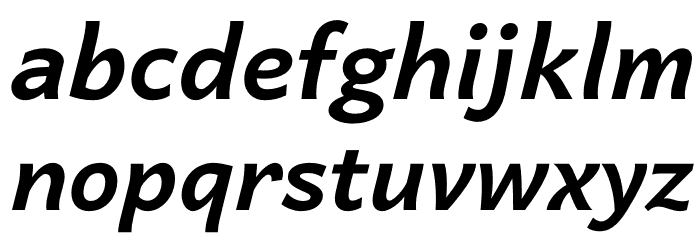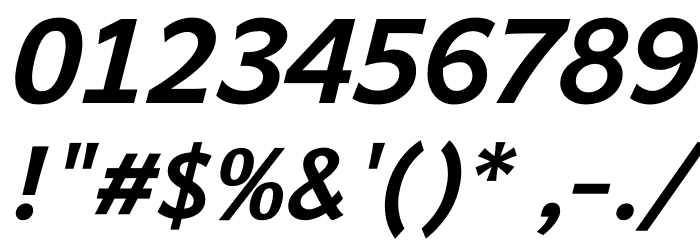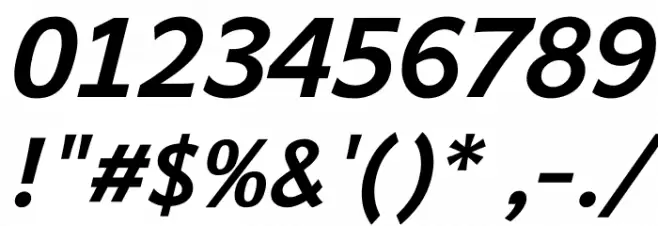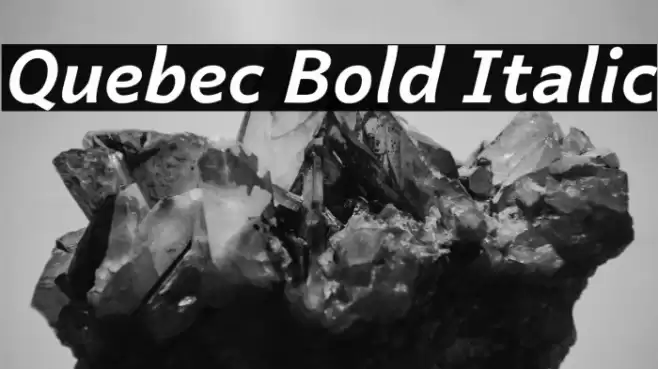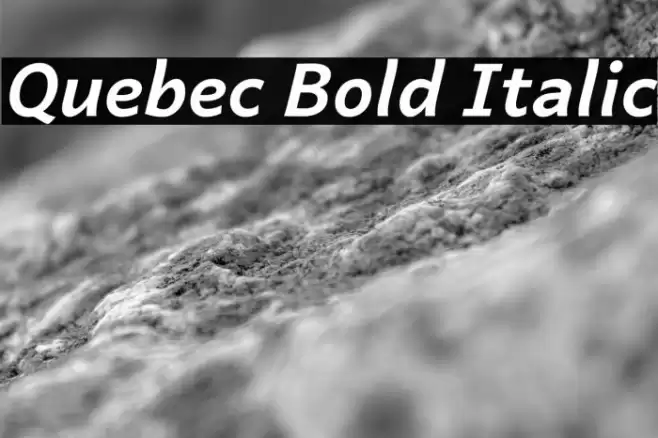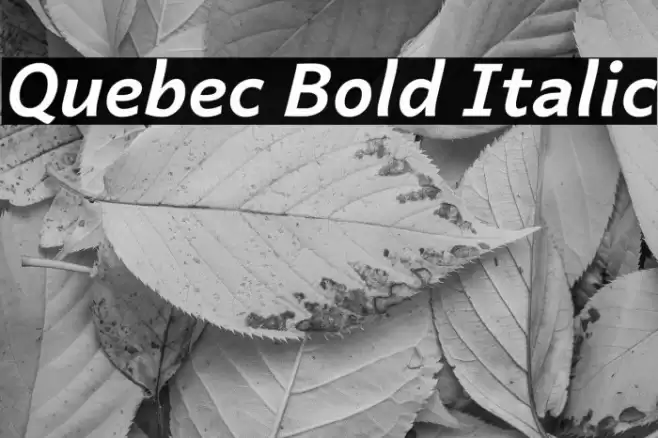
Quebec Bold Italic Font
This font features a bold and italicized style, offering a dynamic and assertive appearance. The characters are slightly slanted, providing a sense of motion and energy. The strokes are thick and consistent, contributing to its boldness, while the italic angle adds a touch of elegance. The font maintains a clean and modern look, making it suitable for various design applications. Its legibility is high, even at smaller sizes, due to the clear distinction between characters. The numerals are well-proportioned, and the special characters are designed to complement the overall style, ensuring versatility in usage.
- Proposed Projects: Ideal for branding, advertising, headlines, and editorial design where a strong and modern impression is needed.
- Use Case: Headlines, Logos, Branding